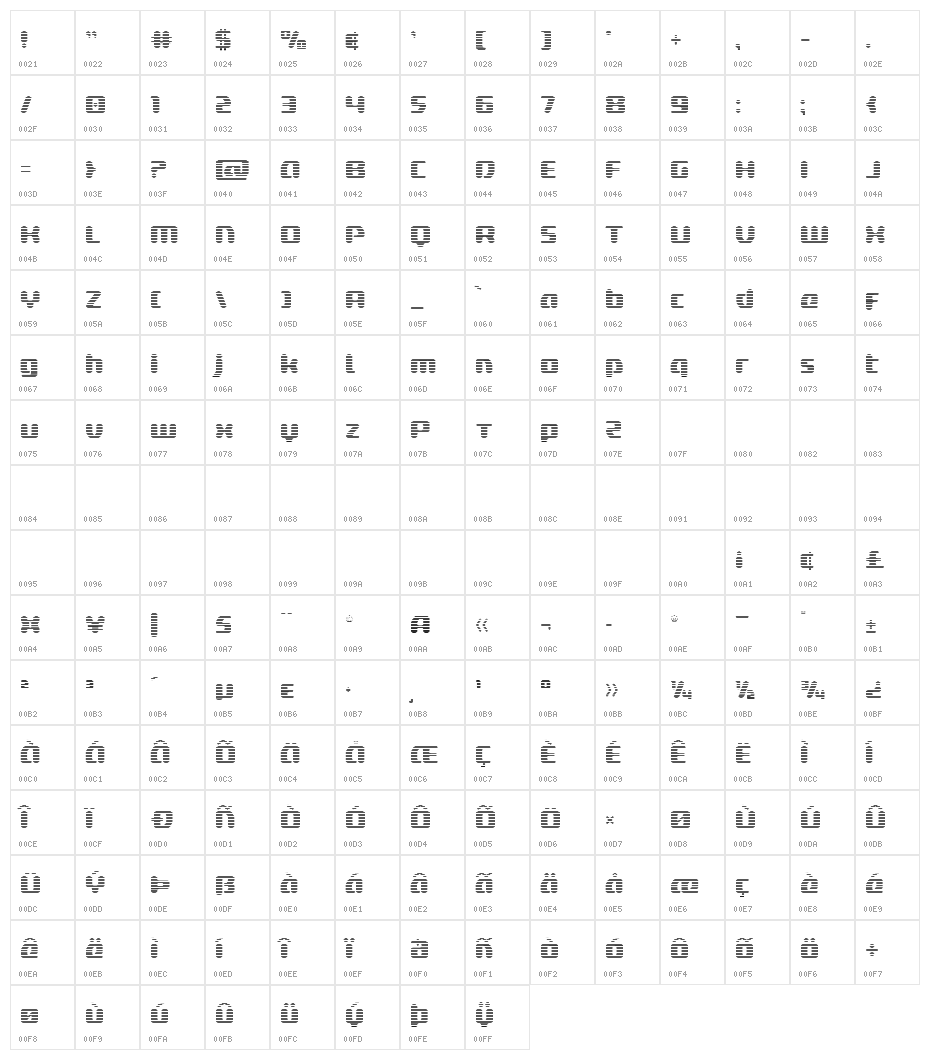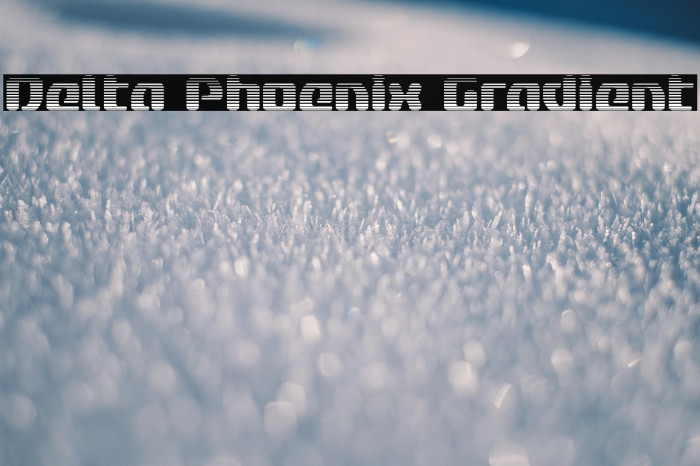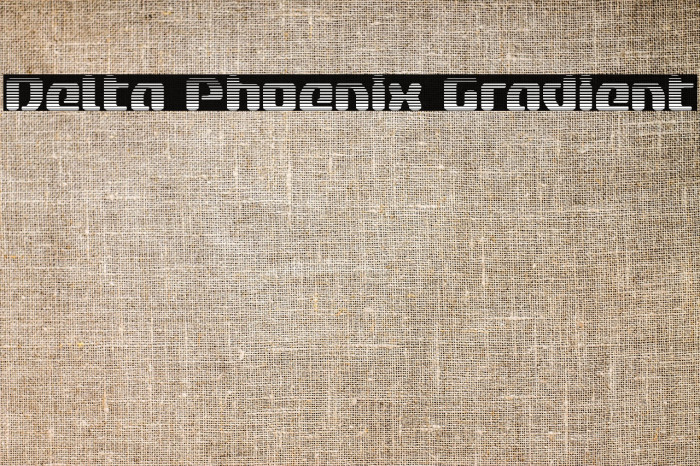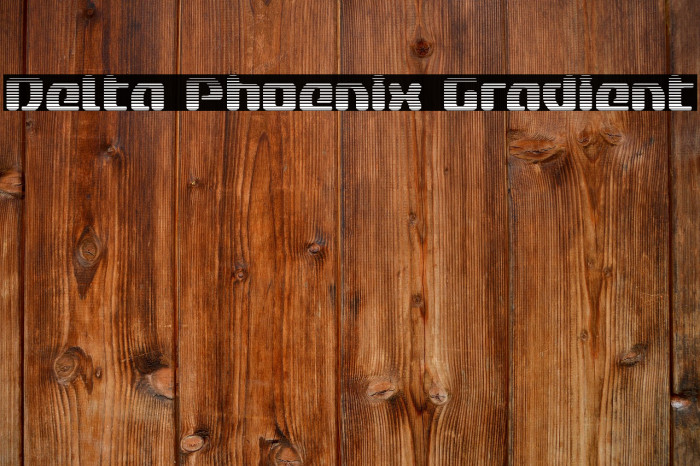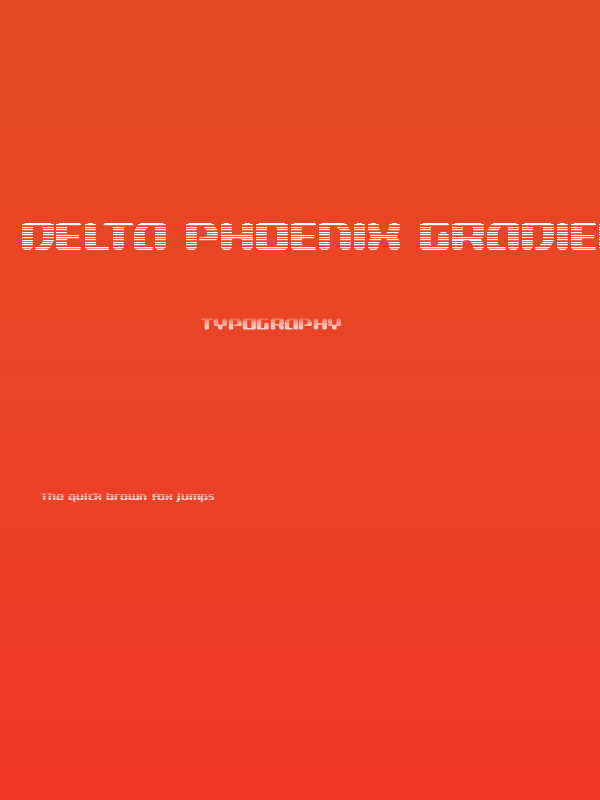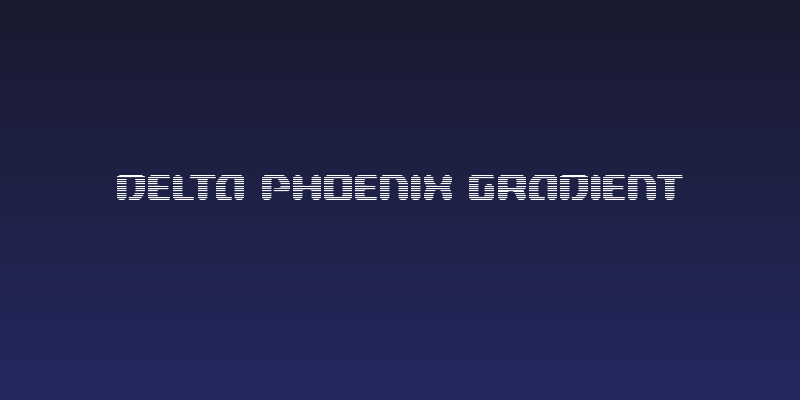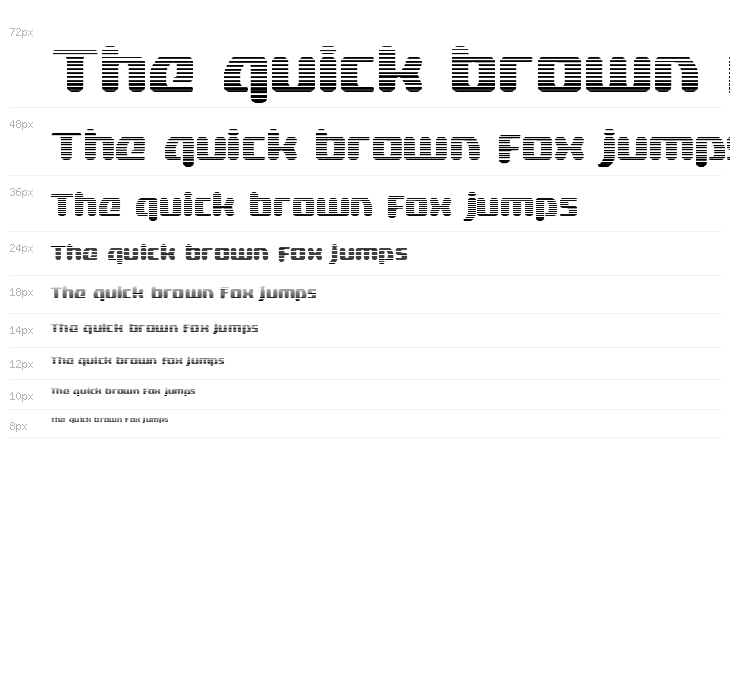
Delta Phoenix Gradient Font
Delta Phoenix Gradient Description
This font features a unique, futuristic design characterized by horizontal lines that create a gradient effect within each character. The letters are bold and geometric, with a distinct blocky appearance that gives them a modern and tech-inspired feel. The consistent use of horizontal lines across all characters adds a sense of movement and dynamism, making it stand out in any design. The uppercase and lowercase letters maintain a uniform style, ensuring readability while still being visually striking. Numbers and special characters are designed with the same attention to detail, providing a cohesive look throughout.